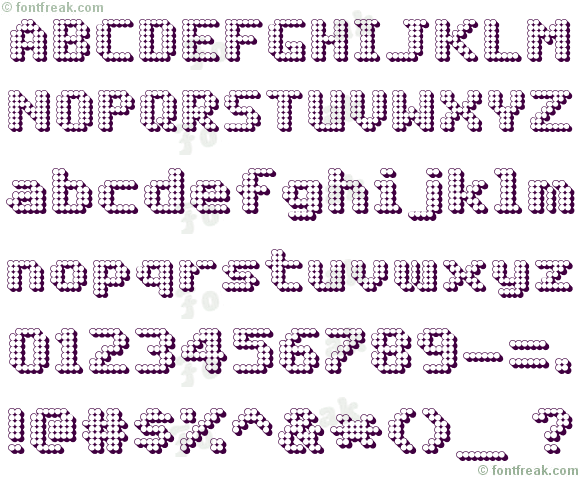
Matrix Complex 3D NC
Matrix Complex NC
Matrix Complex Wave NC
About Matrix Complex 3D NC
The Matrix Complex 3D NC font, designed by Jayvee Enaguas, is a captivating display typeface that offers a unique blend of complexity and depth. This font falls within the decorative category, characterized by its intricate 3D appearance that gives the impression of dimensionality. The strokes are meticulously crafted to create a striking visual impact, featuring a medium stroke weight that provides a balanced contrast against its bold forms. The spacing is well-considered, allowing for clarity and legibility, even in more elaborate designs.
This font is ideal for a variety of creative applications. It can elevate movie posters with its futuristic aesthetic, making titles stand out and draw attention. Additionally, it works wonderfully for tech-themed branding, digital artwork, and promotional materials that aim to convey innovation. Other perfect use cases include video game graphics, where its unique style can enhance the overall visual experience, and eye-catching signage for events or exhibitions that require a modern touch.
The target audience for Matrix Complex 3D NC includes graphic designers seeking to add a distinctive flair to their projects, small business owners looking to create memorable marketing materials, and content creators aiming for a visually striking online presence. This font is particularly suited for those who appreciate artistic expression and want to make a bold statement in their work.
What sets the Matrix Complex 3D NC font apart is its ability to combine artistic intricacy with functional design. The 3D effect adds a layer of sophistication that can transform ordinary text into extraordinary visual elements. With its freeware license, designers can easily access this stunning typeface for various projects, making the Matrix Complex 3D NC font free download an excellent choice for anyone looking to enhance their creative toolkit.